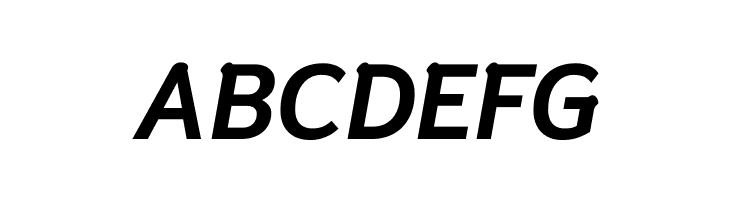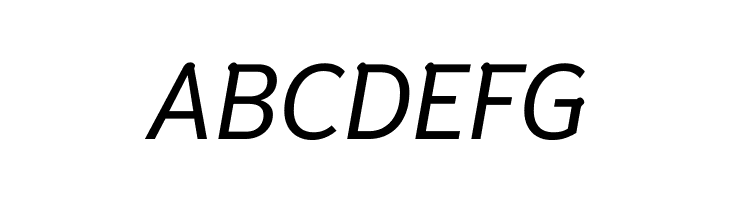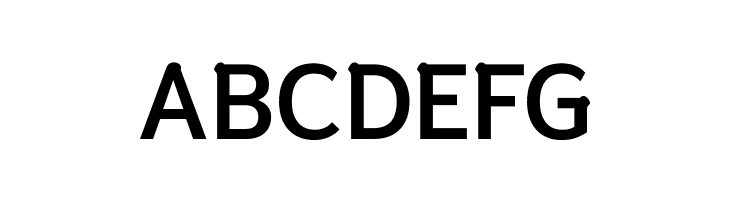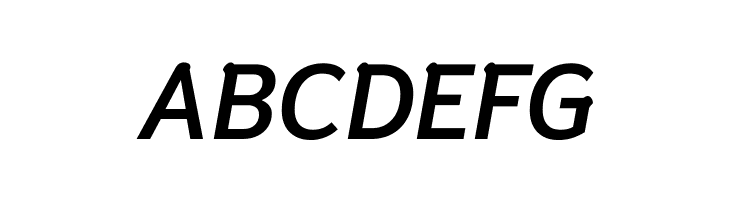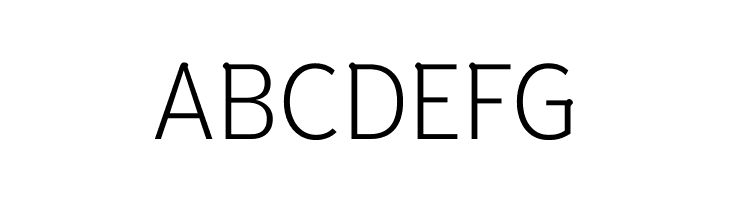
A bold, italic, and modern typeface with clean lines and moderate contrast.
A modern, light sans-serif font with clean lines and rounded edges.
A sleek, modern, and elegant italic font with light weight and balanced spacing.
A modern, italic font with clean lines and balanced proportions.
A modern, light sans-serif font with clean lines and balanced proportions.
A modern, clean font with a subtle italic slant and consistent stroke width.
A clean, modern typeface with rounded edges and uniform stroke width.
A modern, italic sans-serif font with medium weight and smooth curves.
A modern sans-serif font with clean lines and excellent readability.
A modern, semi-bold sans-serif font with clean lines and excellent readability.
A modern, semi-bold italic font with smooth strokes and medium contrast.
A bold, impactful font with strong, thick strokes and a commanding presence.
Modern, clean sans-serif font with regular weight and balanced spacing.
A modern, rounded, and bold font with smooth edges and high legibility.
A bold, italic, modern sans-serif font with rounded, smooth letterforms.
A modern, bold, and italic rounded sans-serif font with medium contrast.
A modern, bold sans-serif font with rounded terminals and excellent readability.
A bold, italic, modern sans-serif font with smooth curves and medium contrast.
A modern, rounded sans-serif font with a friendly and approachable style.
A modern, rounded, extra bold italic font with medium contrast and smooth style.
A modern, clean sans-serif font with uniform stroke width and excellent readability.
A modern, clean sans-serif font with a subtle italic slant and smooth strokes.
A modern, heavy, rounded sans-serif font with an italic slant.
A bold, rounded font with a modern and friendly appearance.
A modern, italic sans-serif font with smooth curves and rounded terminals.
A modern, rounded sans-serif font with a clean and elegant appearance.
A modern, light, and italic sans-serif font with rounded edges.
A modern, rounded sans-serif font with clean lines and balanced spacing.
A modern, bold, and italic sans-serif font with excellent readability.
A modern sans-serif font with bold, clean lines and excellent readability.
A modern, bold, and italic sans-serif font with a friendly and approachable style.